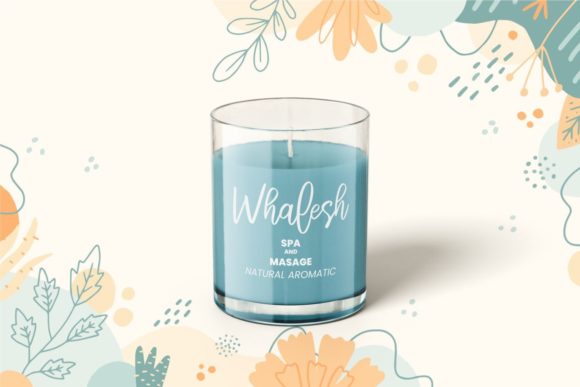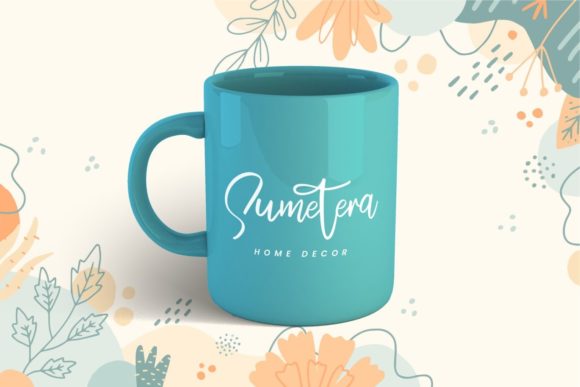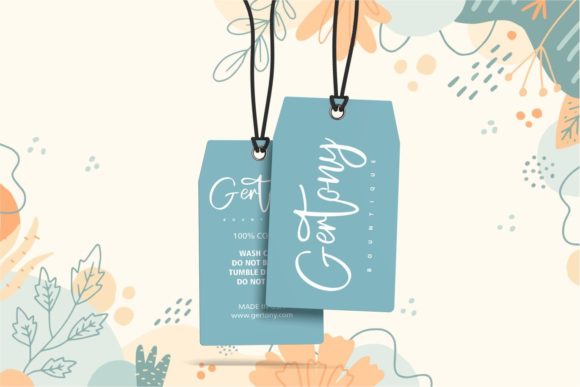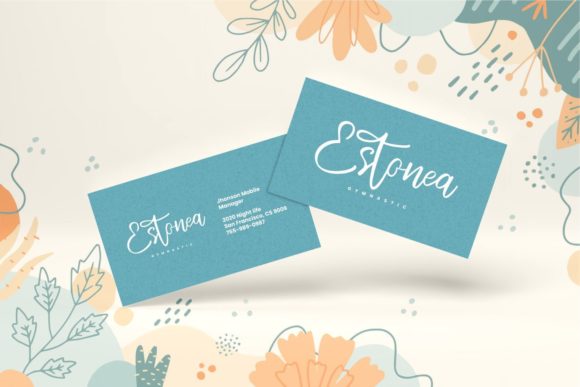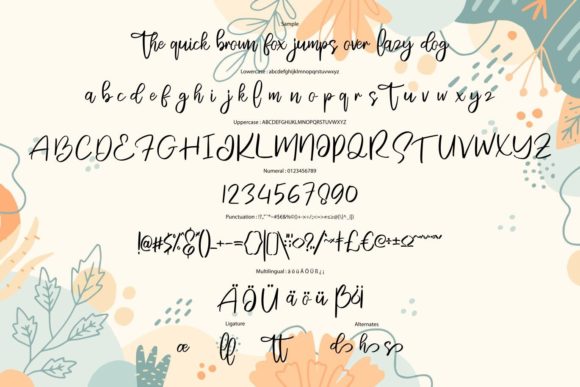
Batilons Script Font
About Batilons Script Font
**Batilons | Cute Script font** with a calligraphy style. It looks so beautiful on invitations, greeting cards, branding materials, business cards, quotes, posters, and more!